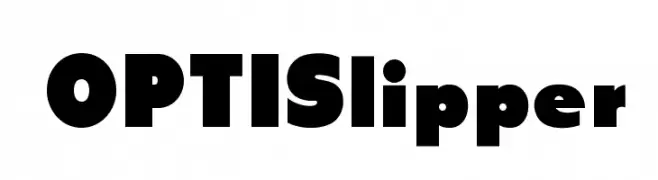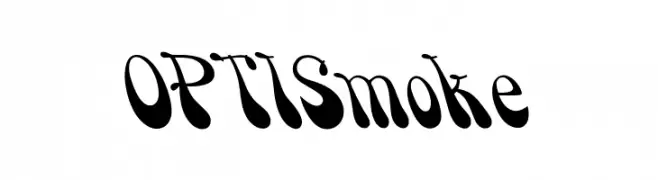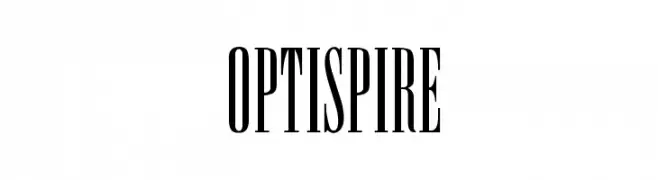
A clean, modern sans-serif font with consistent stroke width and excellent readability.
A distinctive serif font with sharp angles and flowing curves, blending traditional and modern styles.
A bold, rounded font perfect for impactful headlines and modern designs.
A whimsical, smoke-inspired font with flowing, artistic characters.
A bold, serif font with thick strokes and rounded serifs, offering a classic yet modern appeal.
A tall, elegant font with high contrast and condensed letterforms.
A dynamic, flowing script font with bold, slanted uppercase letters and elegant cursive lowercase forms.
A modern, geometric font with clean lines and rounded corners.
A modern, geometric sans-serif font with an extended width and clean lines.
A bold, extended font with a modern and impactful style.